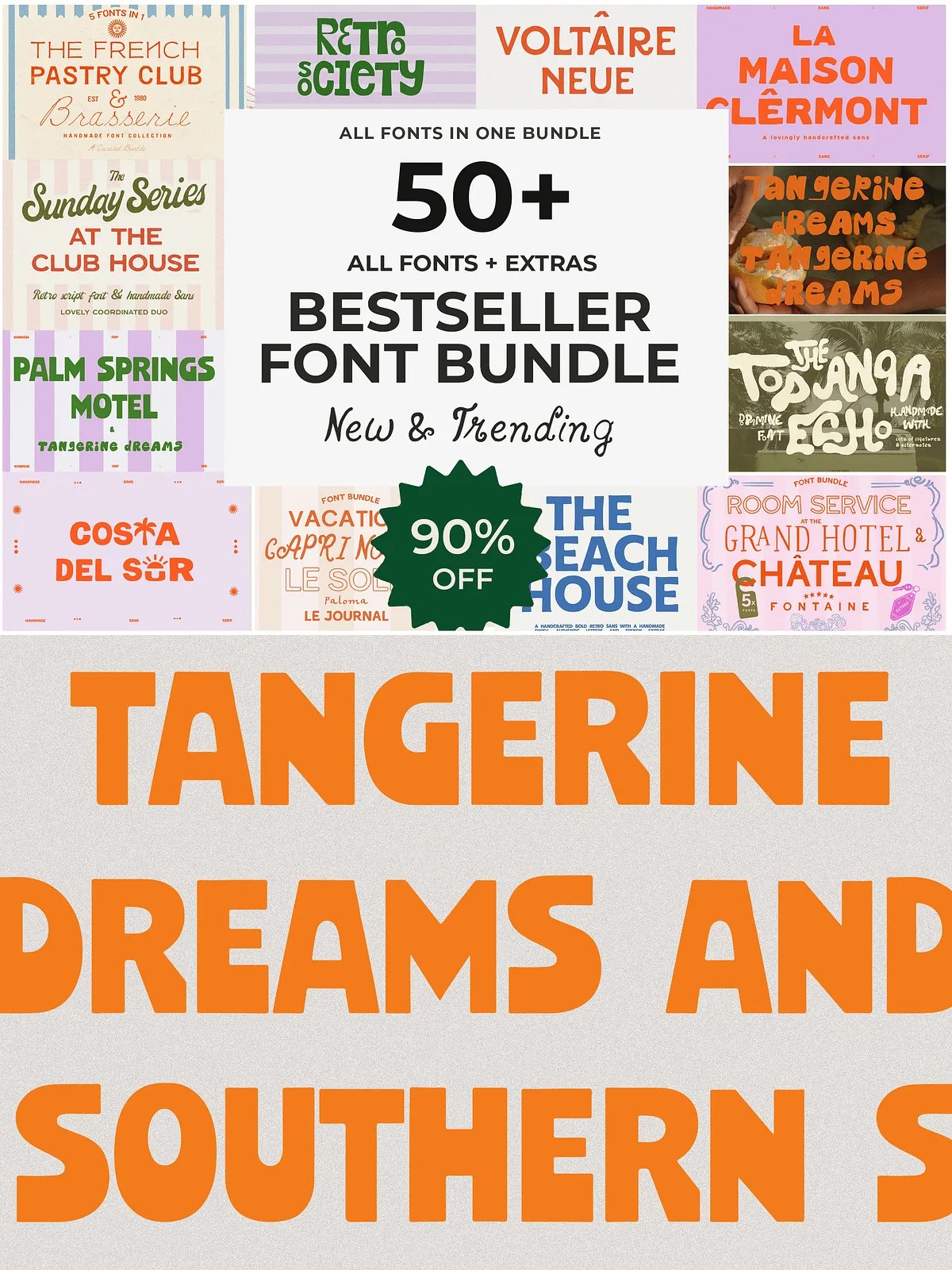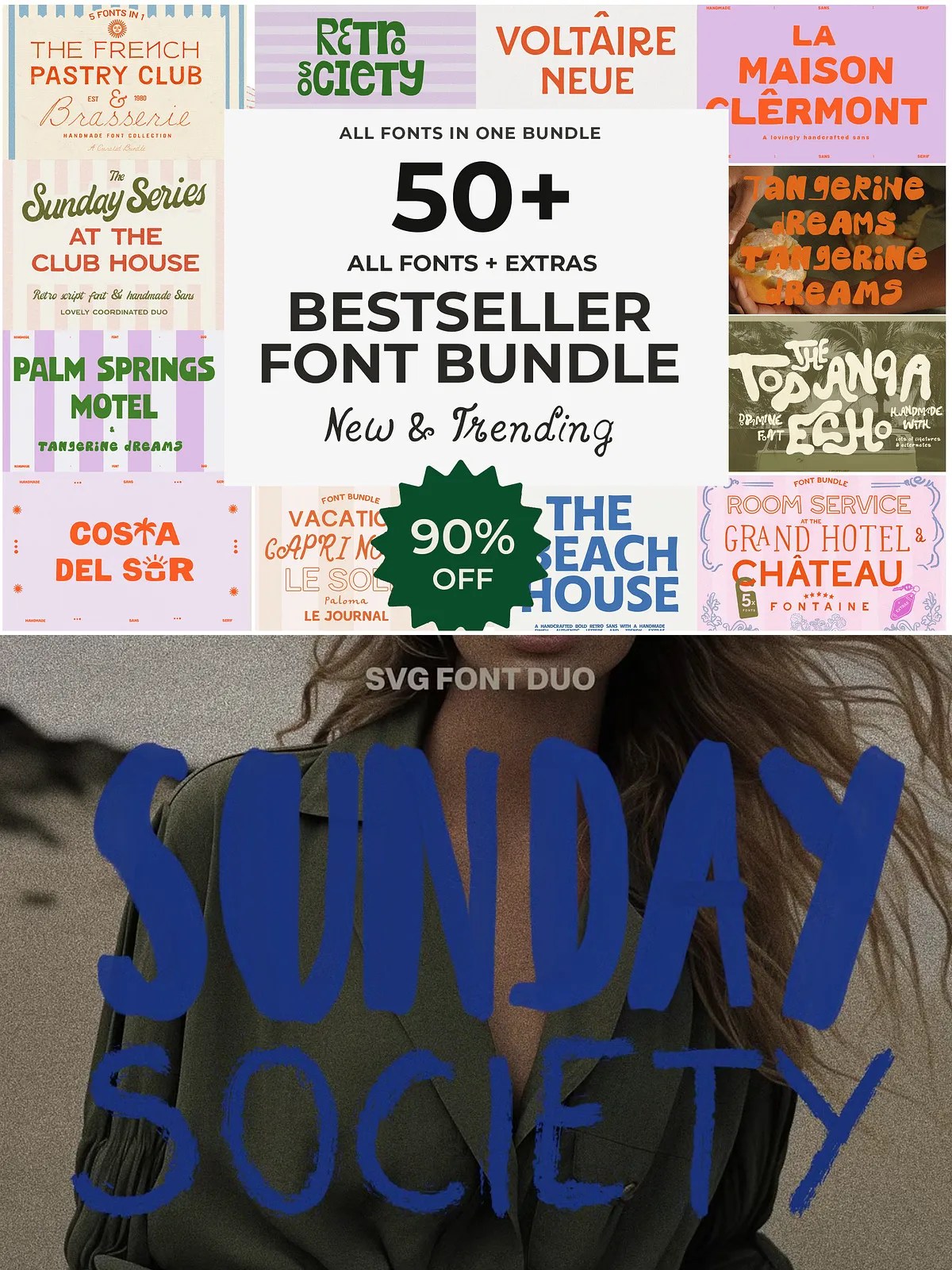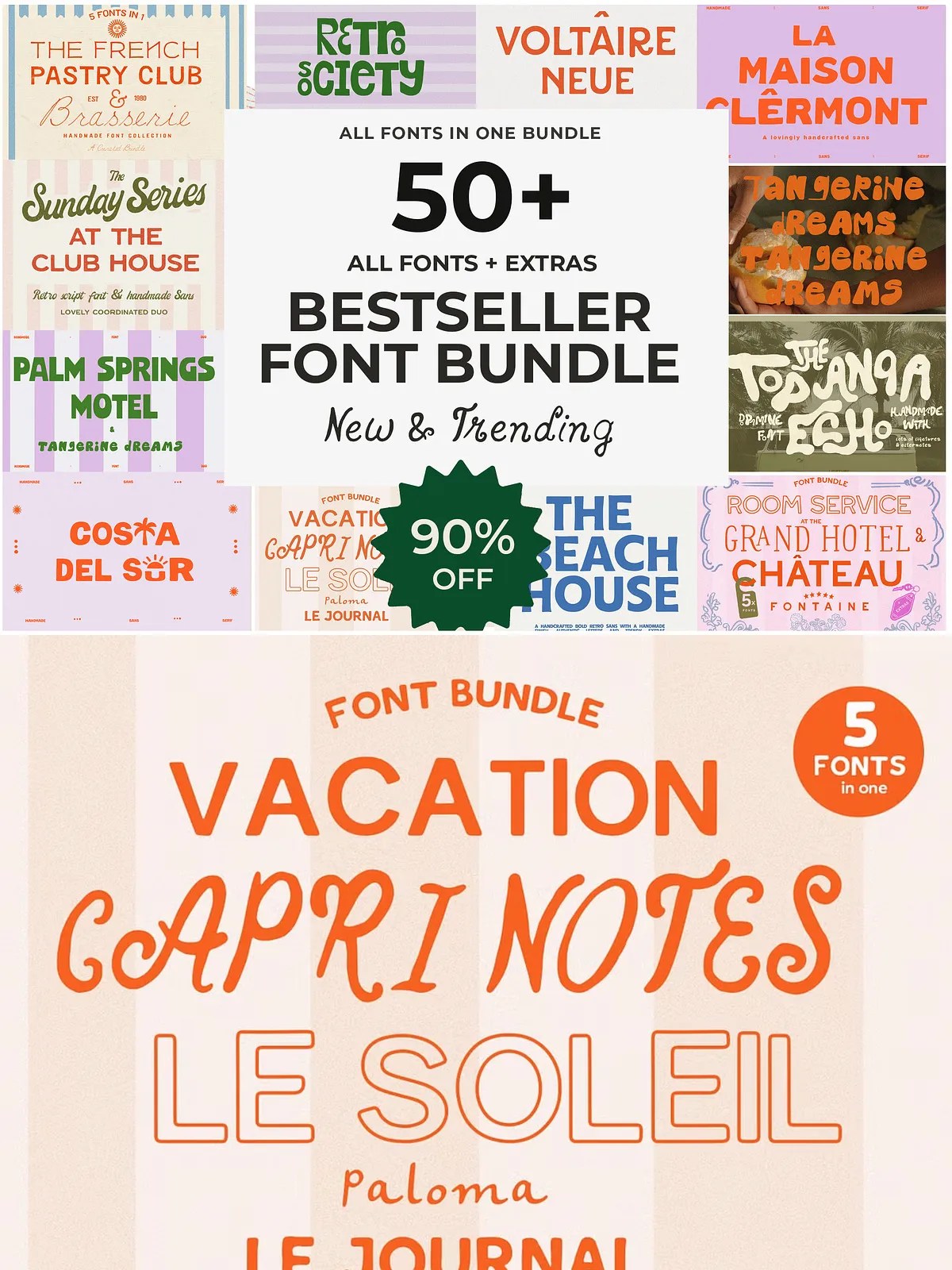
A Diverse Collection of Handcrafted Styles
Lara’s Wonderland is more than just a font pack; it is a curated library of artistic expression. You will gain access to over 50 distinct typefaces, each hand-drawn, hand-lettered, and carefully refined to ensure a unique character. The collection spans a wide spectrum of styles, ensuring you have the right tool for every design challenge. Explore handmade sans-serif fonts that offer clean, modern readability, playful marker fonts that bring energy and informality to your layouts, and elegant serifs that add a touch of sophistication and tradition.
Beyond the basics, this bundle features whimsical scripts and modern display fonts that command attention. These typefaces are perfect for headlines, logos, and focal points where visual impact is crucial. Lara combines vintage aesthetics with contemporary design principles, resulting in fonts that feel both timeless and fresh. Each typeface is crafted with meticulous attention to detail, ensuring that the organic imperfections of hand-lettering are preserved, giving your designs a natural and authentic feel that digital-only fonts often lack.
Enhance Your Designs with Advanced Features
Many fonts in the Lara’s Wonderland collection come equipped with advanced features such as ligatures and alternates. These typographic tools allow you to create more natural and fluid text compositions. Ligatures replace standard character combinations with single, connected glyphs, mimicking the flow of traditional calligraphy. Alternates provide multiple stylistic choices for single characters, allowing you to customize the look and feel of your text to better suit the context of your design. These features are particularly valuable for branding projects, where consistency and unique visual identity are paramount.
By leveraging these features, you can move beyond basic typography and create custom-looking type designs without the need for extensive manual lettering. This efficiency allows you to meet tight deadlines without compromising on quality. The fonts are optimized for various design applications, ensuring smooth performance and precise rendering across different platforms.
The Perfect Pairing Solution
One of the biggest challenges in design is finding complementary fonts that work well together. Lara’s Wonderland solves this problem by providing a cohesive library where every font is designed to pair beautifully with others in the collection. You can mix bold vintage scripts with elegant hand lettering, or combine whimsical calligraphy with sturdy vintage handmade fonts to create dynamic and balanced compositions. The harmonious nature of this collection means you can experiment freely, knowing that your type choices will result in professional and polished outcomes.
This curated approach to font selection saves you from the hassle of sourcing individual fonts from different foundries. Instead, you have a unified library that guarantees visual consistency and stylistic harmony. Whether you are designing wedding invitations, marketing materials, social media posts, or full brand identities, Lara’s Wonderland provides the perfect typographic foundation.
Includes Graphics and Prints
What makes Lara’s Wonderland truly exceptional is the inclusion of special extras like graphics and prints. This bundle goes beyond typography to offer a complete design resource. You will receive complementary visual assets that enhance the handcrafted aesthetic of the fonts. These graphics and prints can be used independently for backgrounds, overlays, or decorative elements, or combined with the fonts to create cohesive design systems. This added value makes the bundle an unparalleled resource for designers who need a one-stop solution for all their creative needs.
Start Creating with Lara’s Wonderland
Take your designs to the next level with a collection that combines artistry, versatility, and value. Lara’s Wonderland is perfect for anyone looking to add a human touch to their digital and print work. The hand-drawn quality of these fonts brings warmth and personality, distinguishing your work from generic templates. Embrace the charm of hand-lettered typography and create designs that stand out. Get your instant access today and start building a creative library that inspires and empowers your work for years to come.